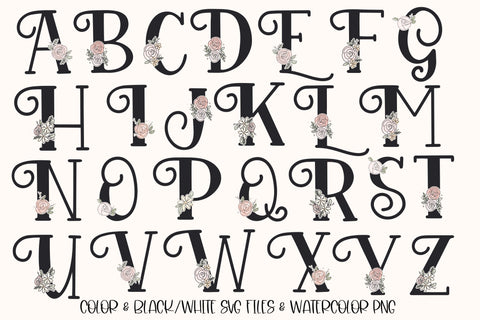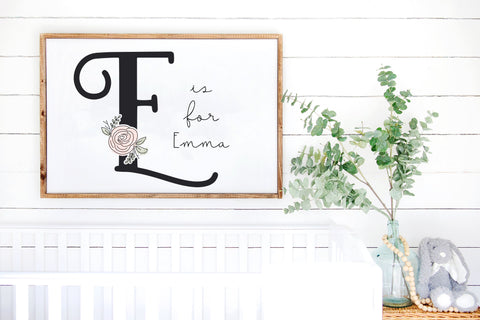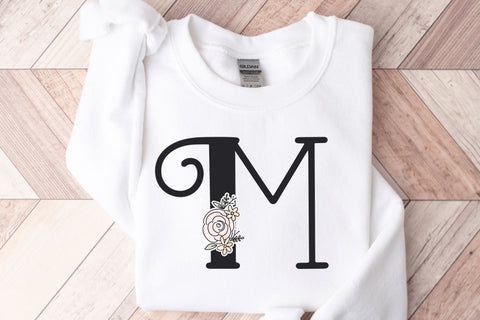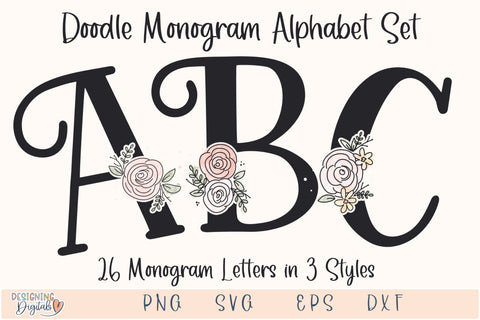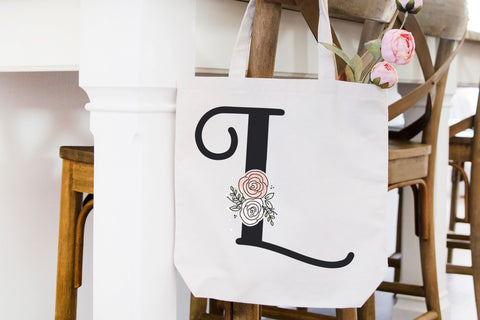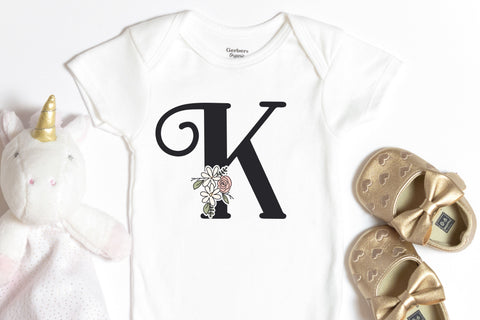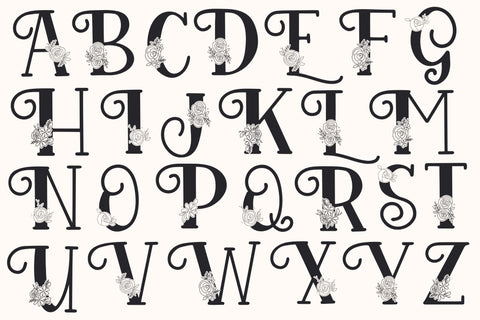
Floral Monogram Doodle Letters SVG, Cute Rose Bouquet PNG Alphabet Sublimation, Monogram Lettering Bundle
Elevate your projects with our elegant Floral Monogram Doodle Letters SVG! This cute rose PNG alphabet sublimation set is perfect for creating personalized items like T-shirts, home decor, and gifts. With intricate monogram lettering, this bundle brings a sophisticated touch to any craft. Whether you're designing for weddings, gifts, or custom decor, this monogram lettering bundle is perfect for adding a floral and feminine flair to your creations. Ideal for anyone seeking beautiful, nature-inspired monogram designs for their next project!